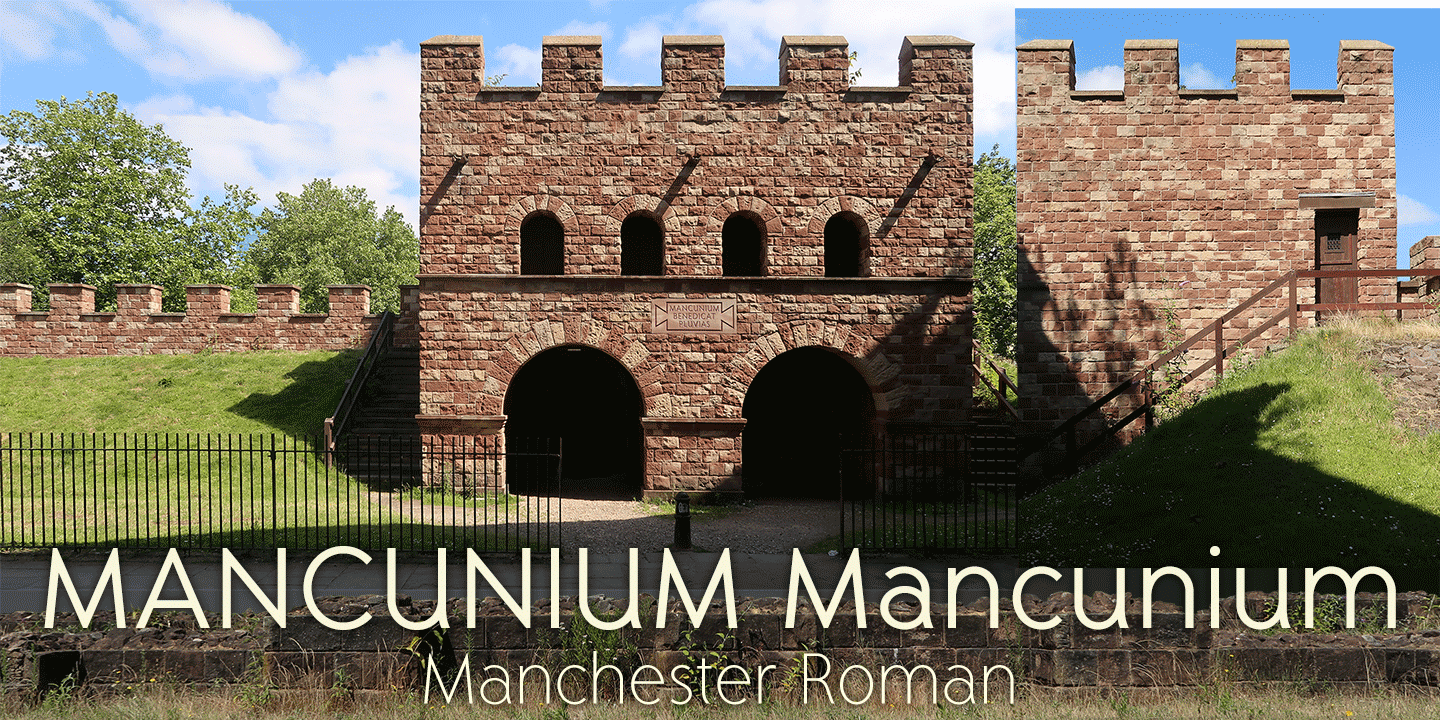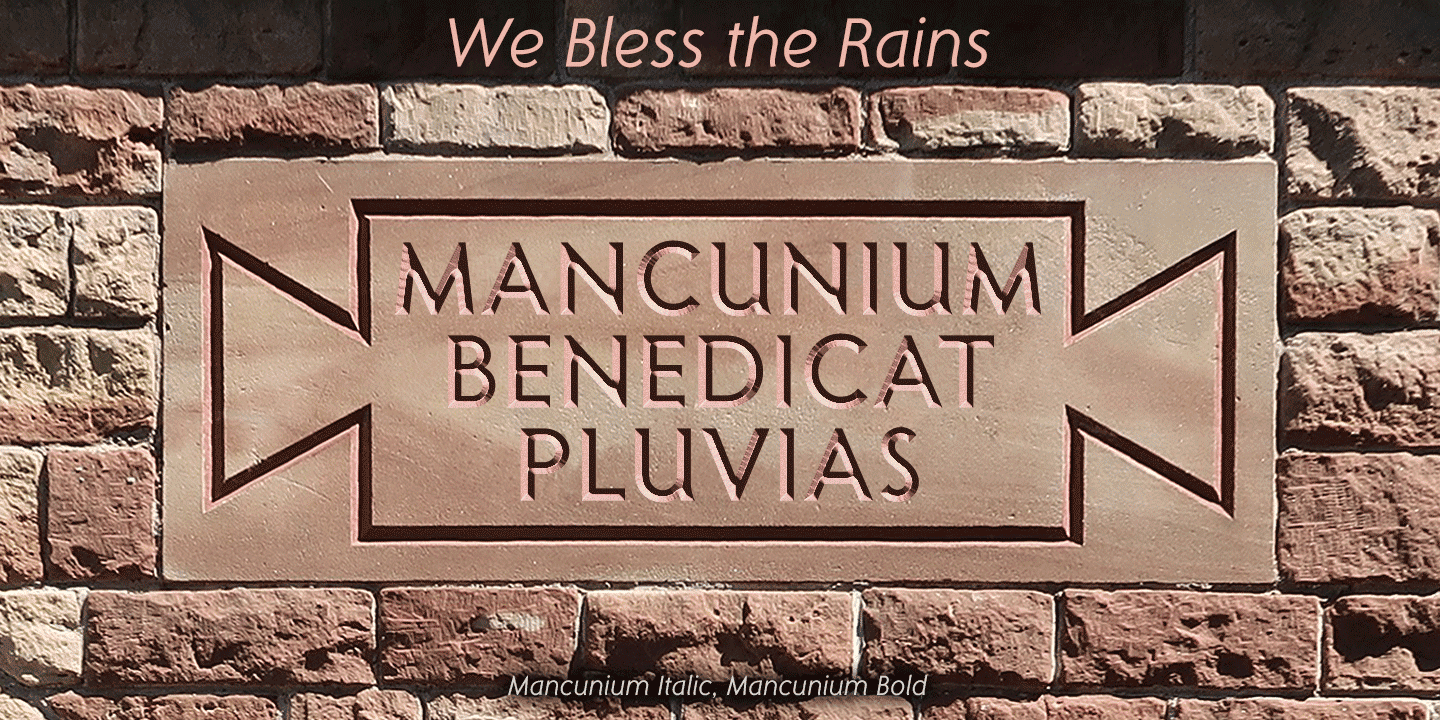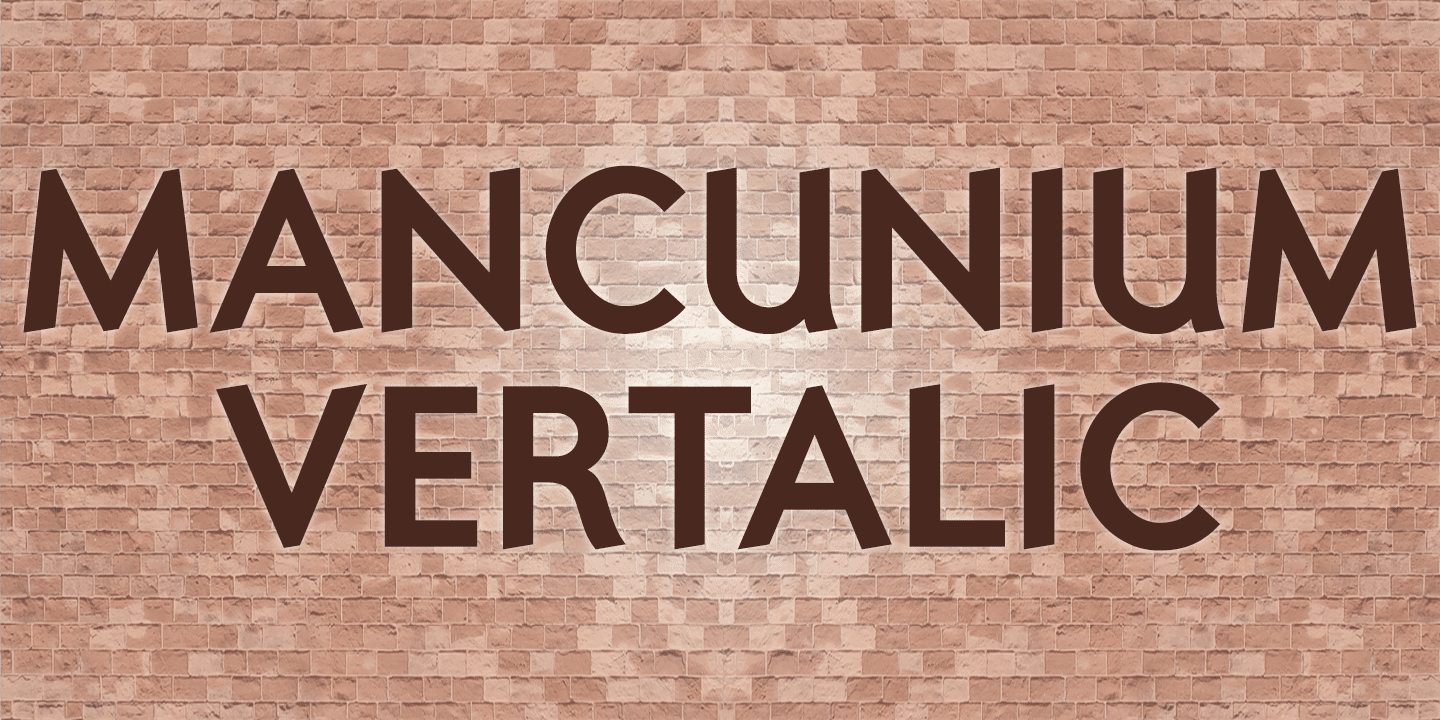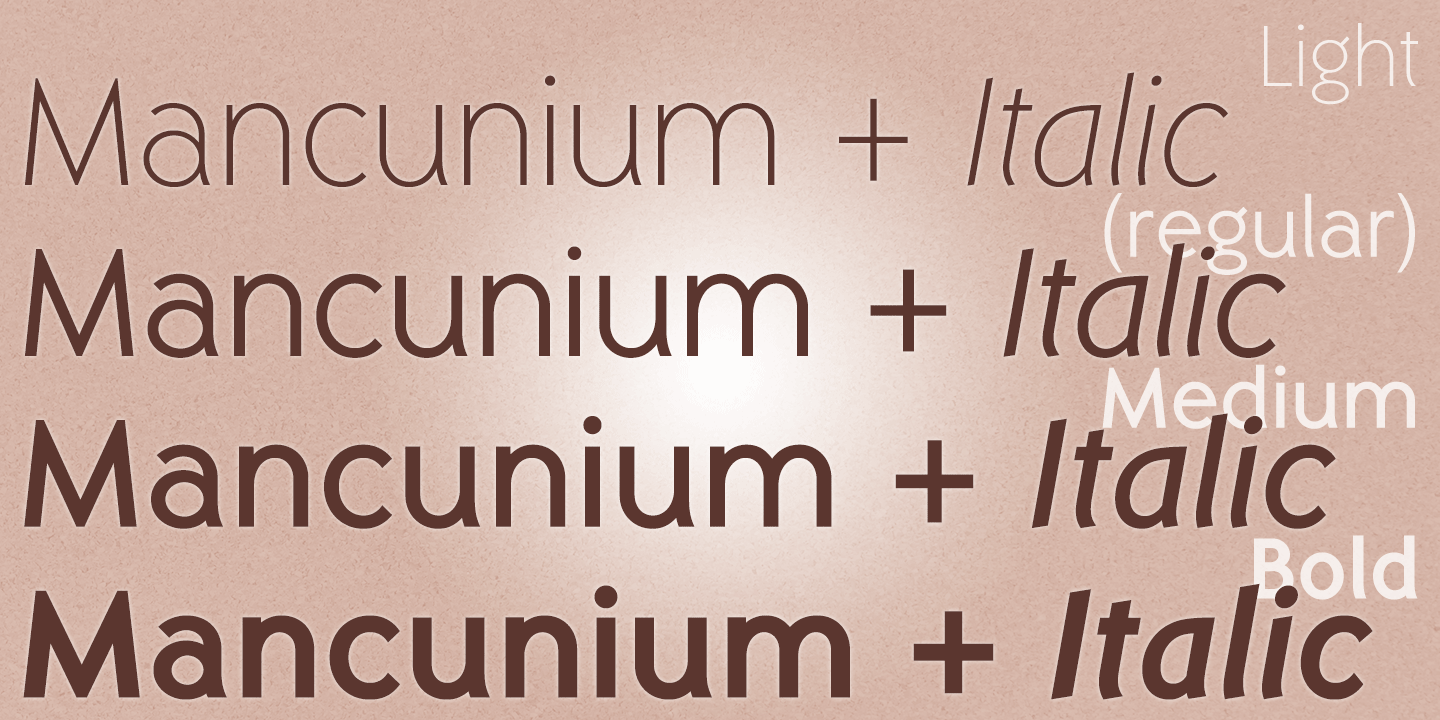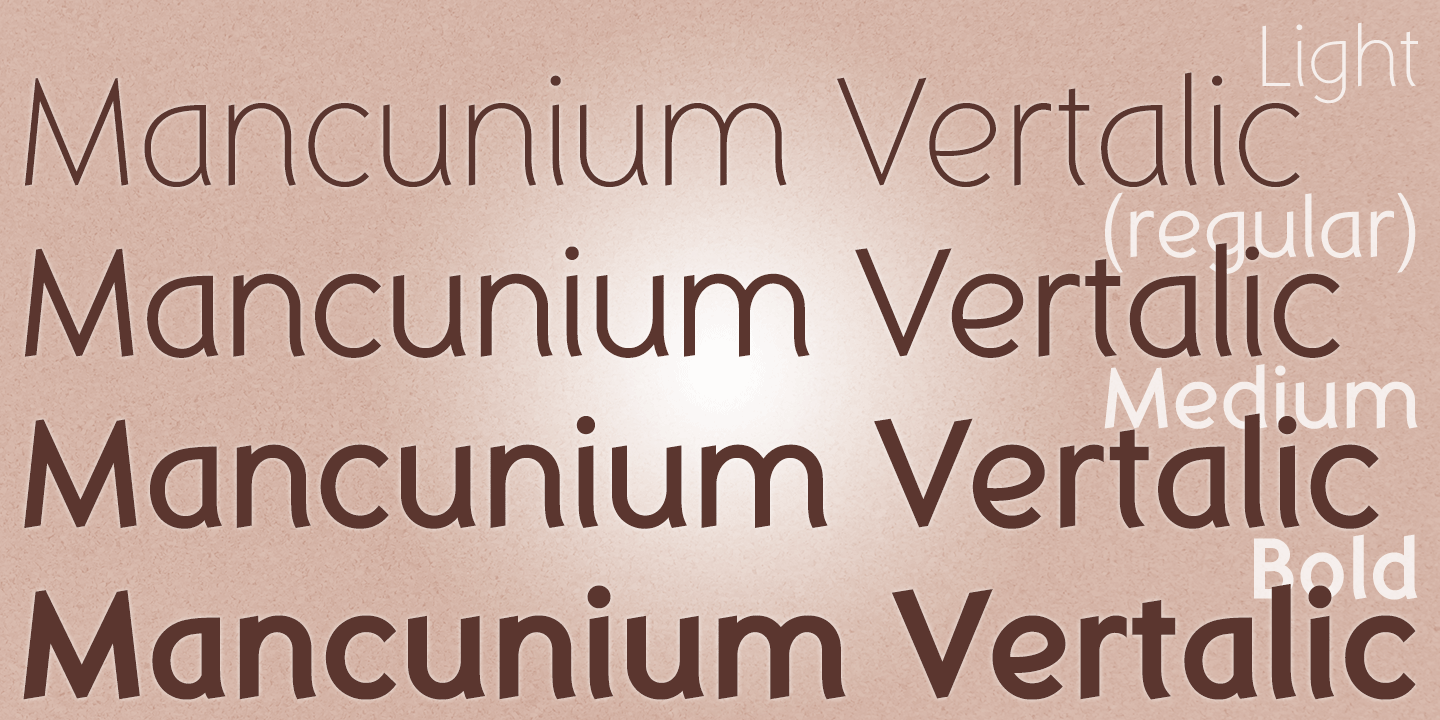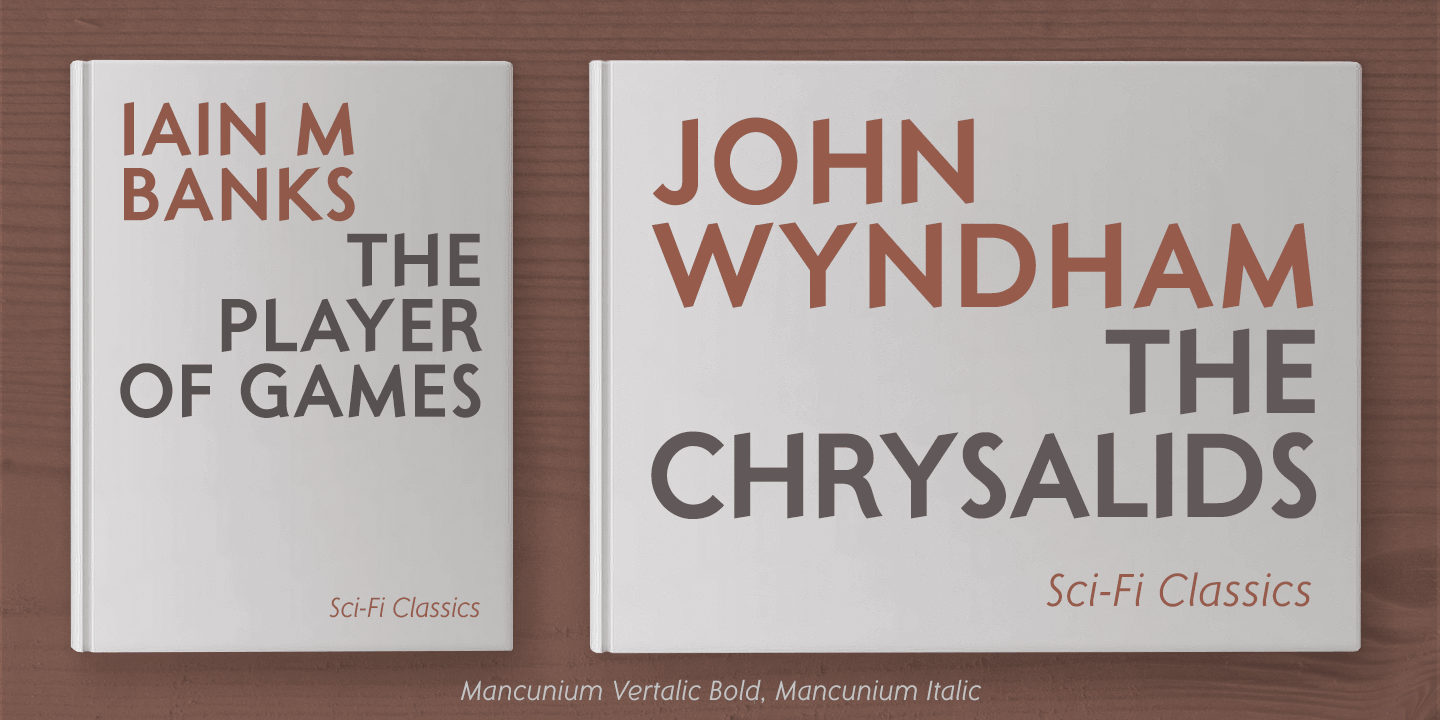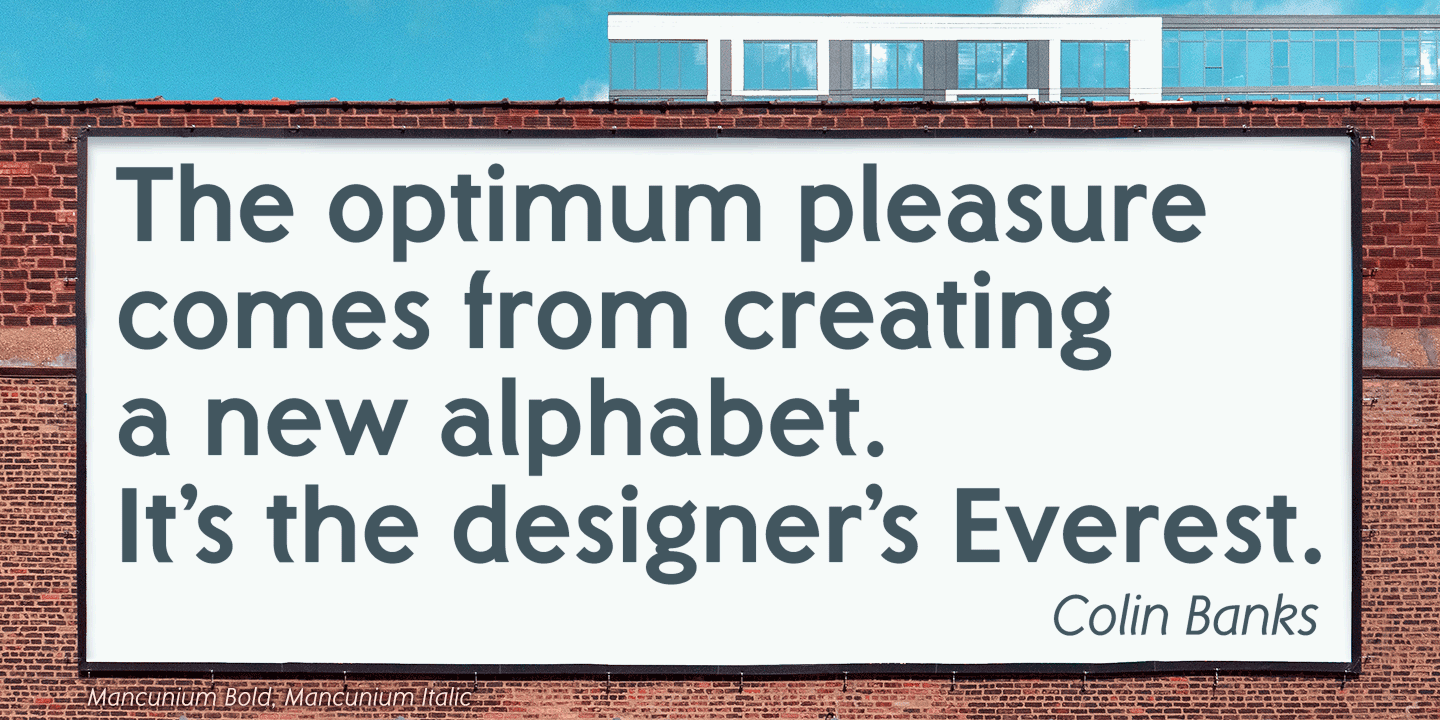
Mancunium Light/Medium Collection
About Mancunium Light/Medium Collection
Mancunium is a sans serif family with a contemporary monolinear character, though designed with the iconic proportions of Roman capitals in mind. In addition to reliable romans, the typeface includes proper, optically corrected italics. Also, uniquely,…